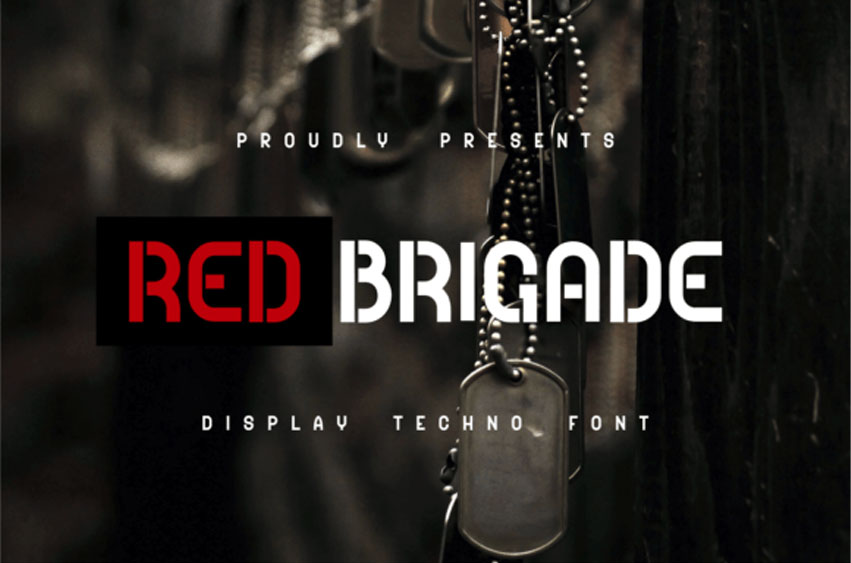
Red Brigade Font is a military-themed display font.
It looks great in technology-themed projects, clothes, shoes, accessories, book labels, or anything else.